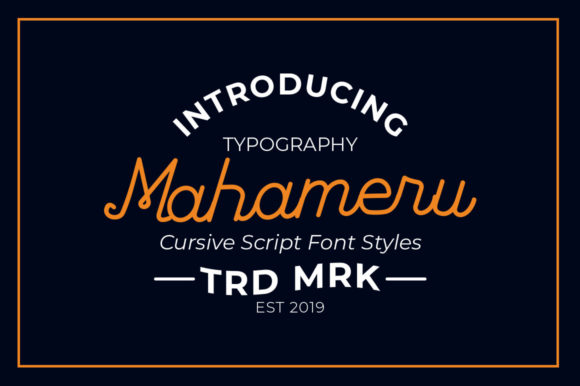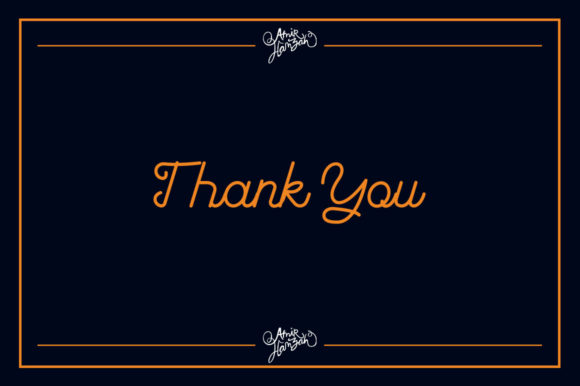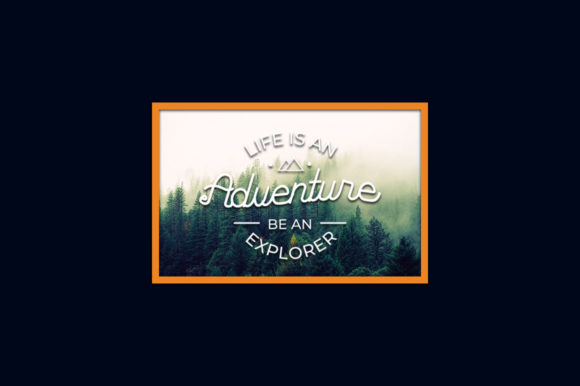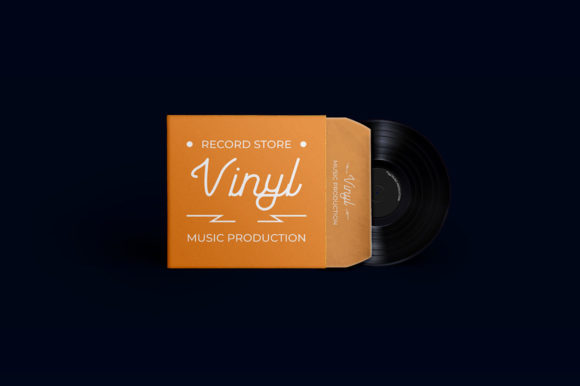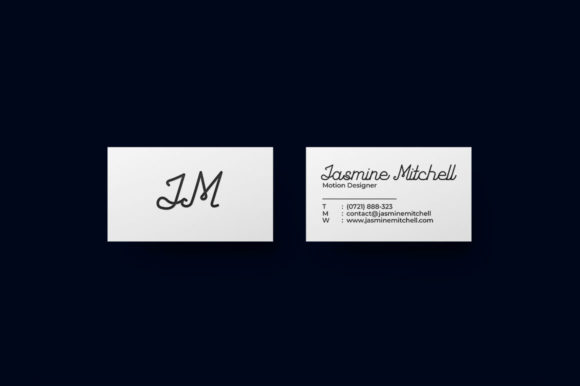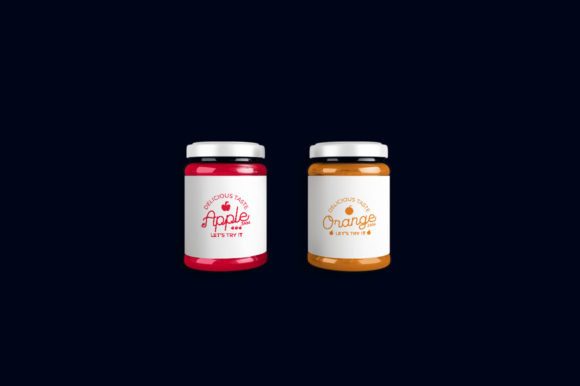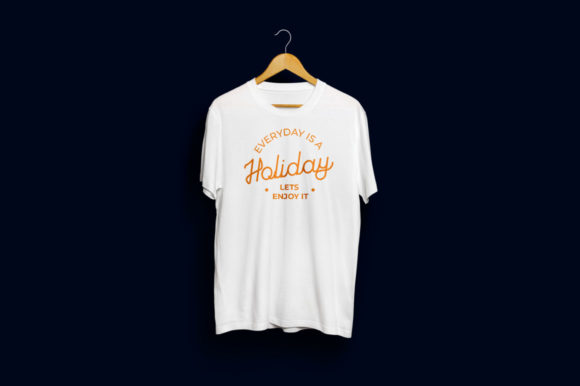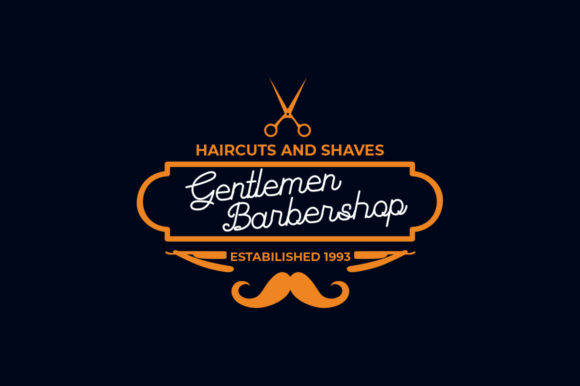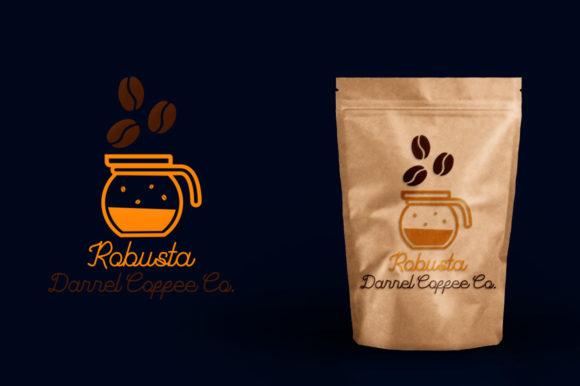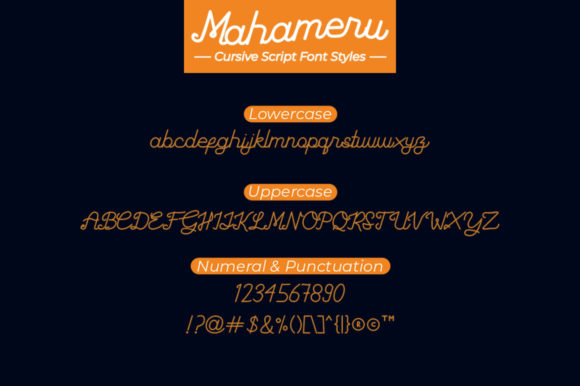
Mahameru Font
About Mahameru Font
Mahameru is a fun and bold handwritten font, full of authentic charm! Use it to turn any design project into an eye catcher!